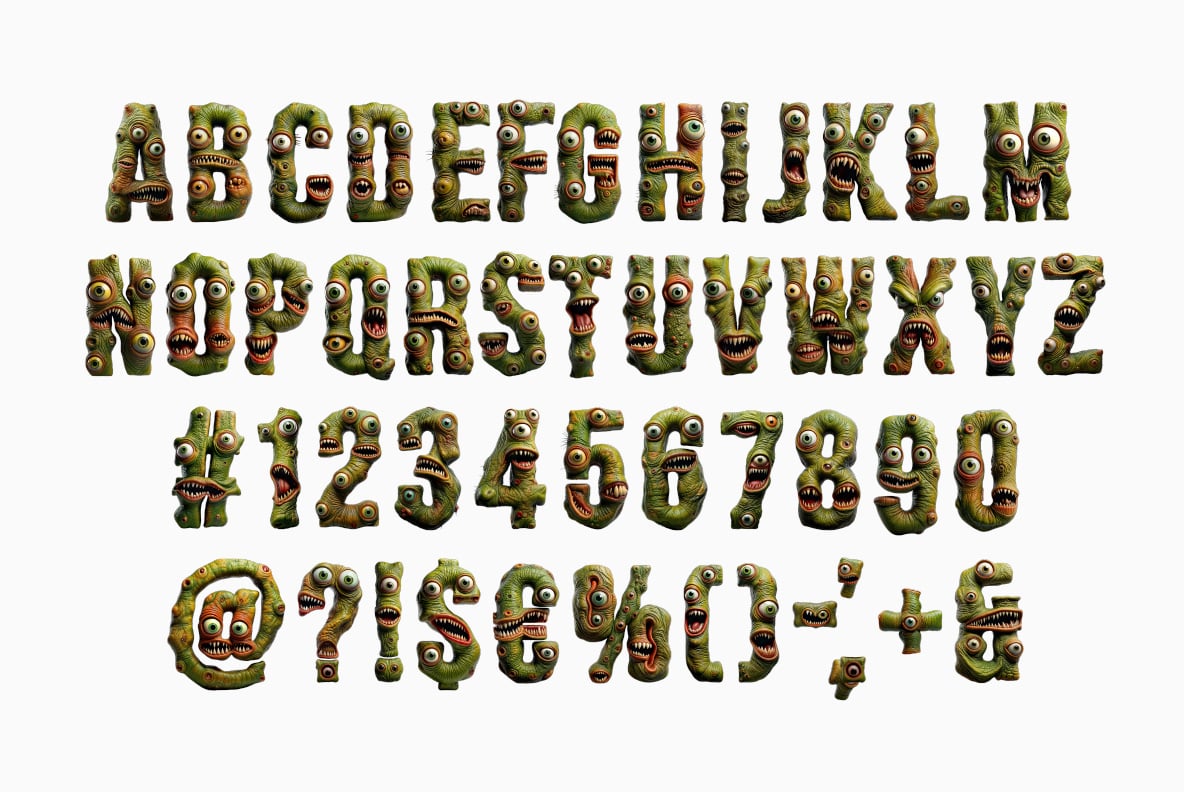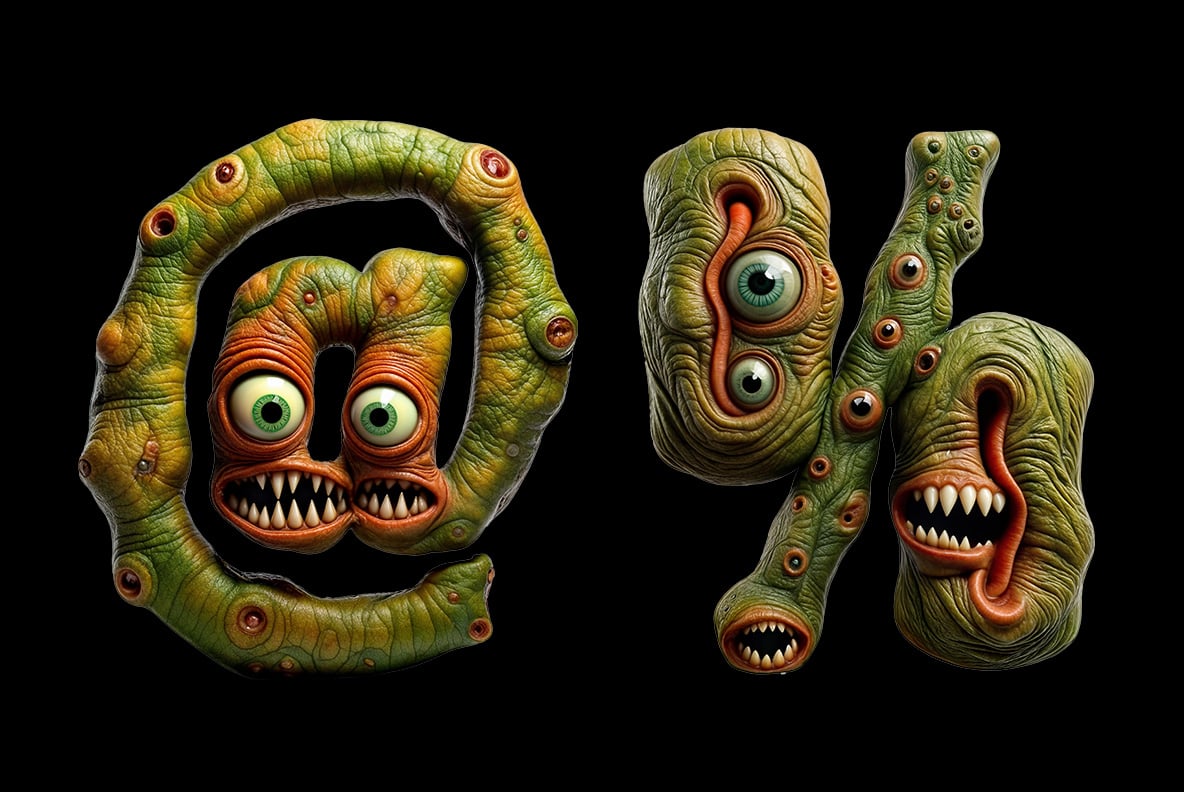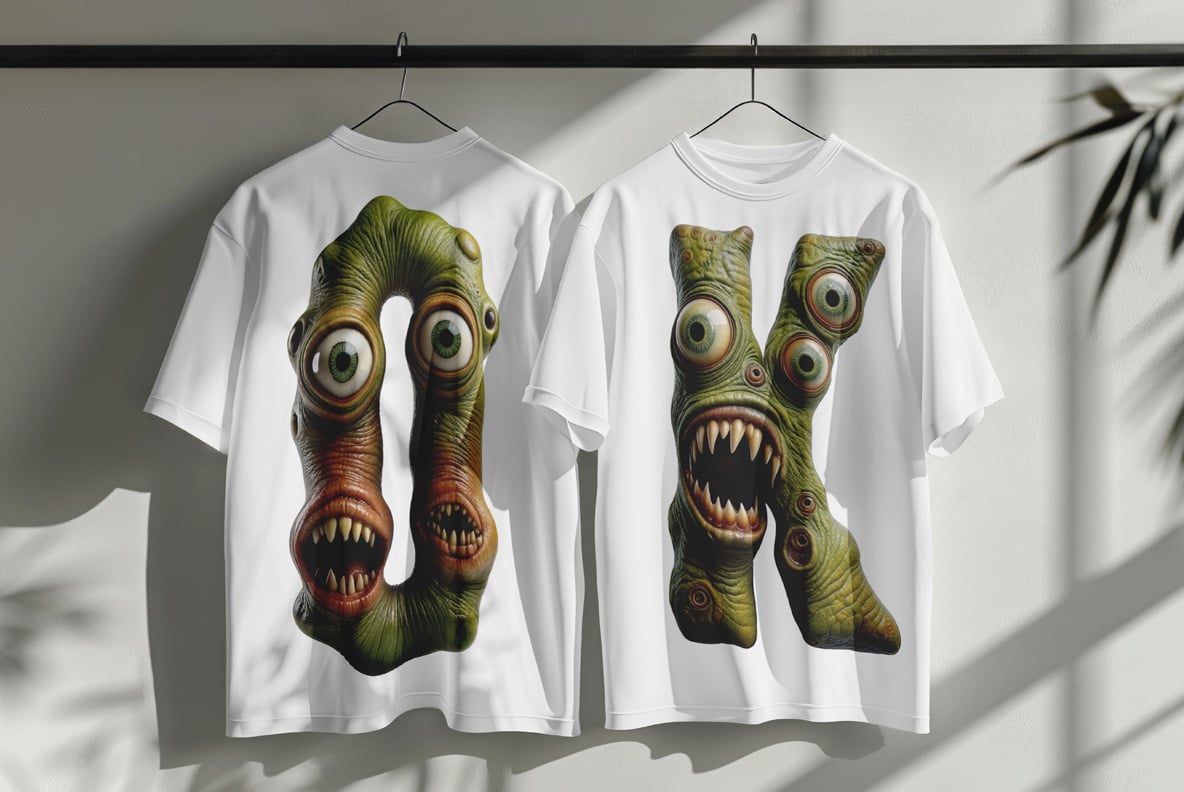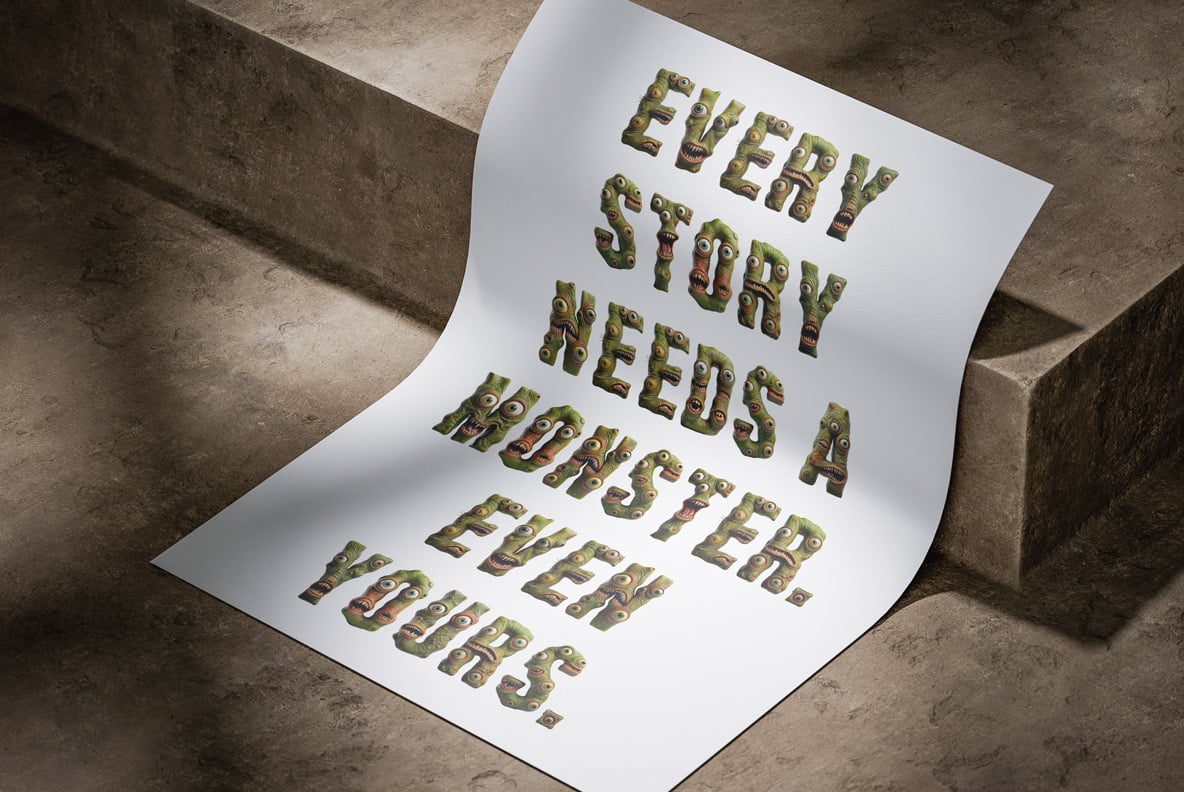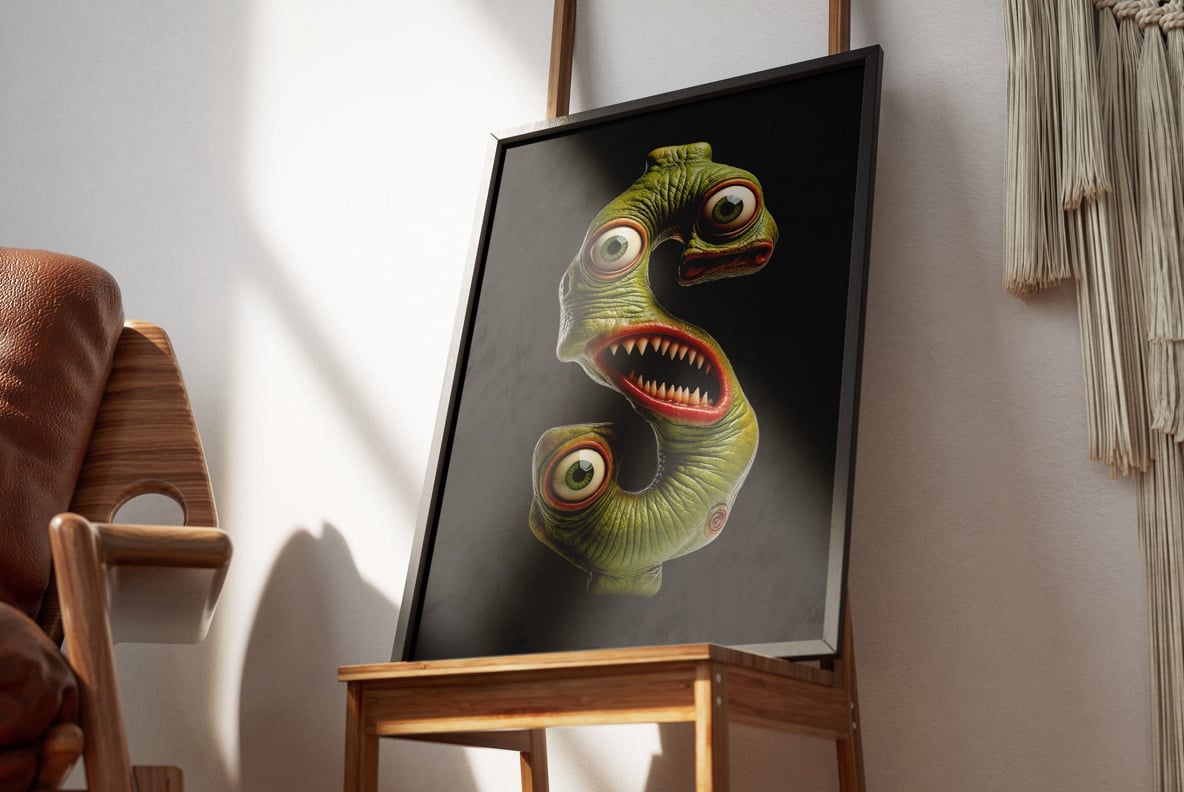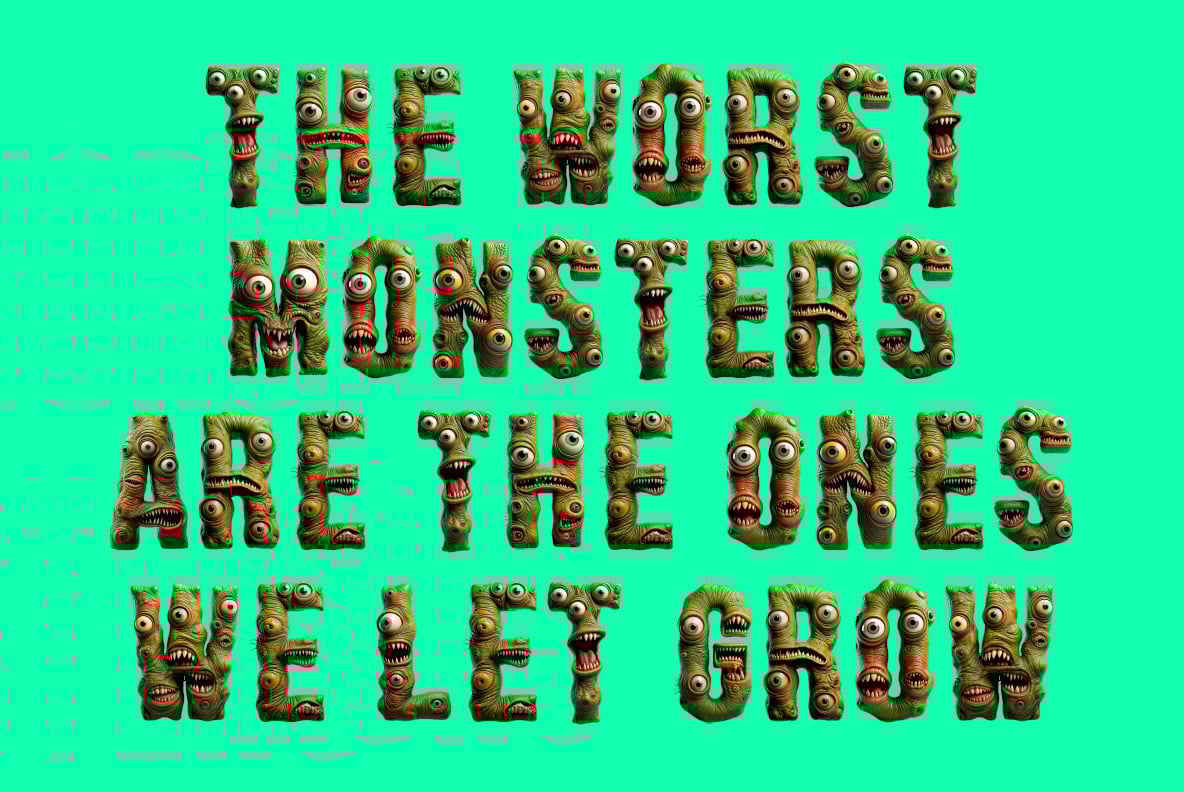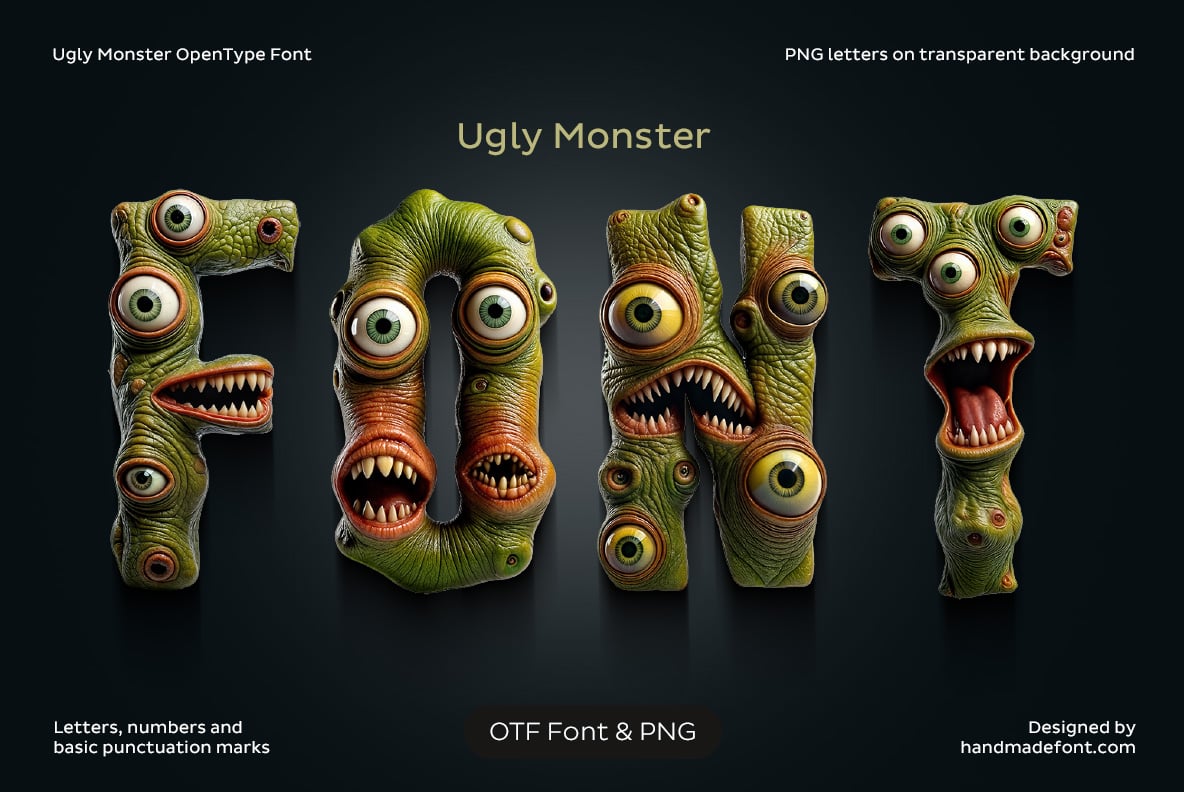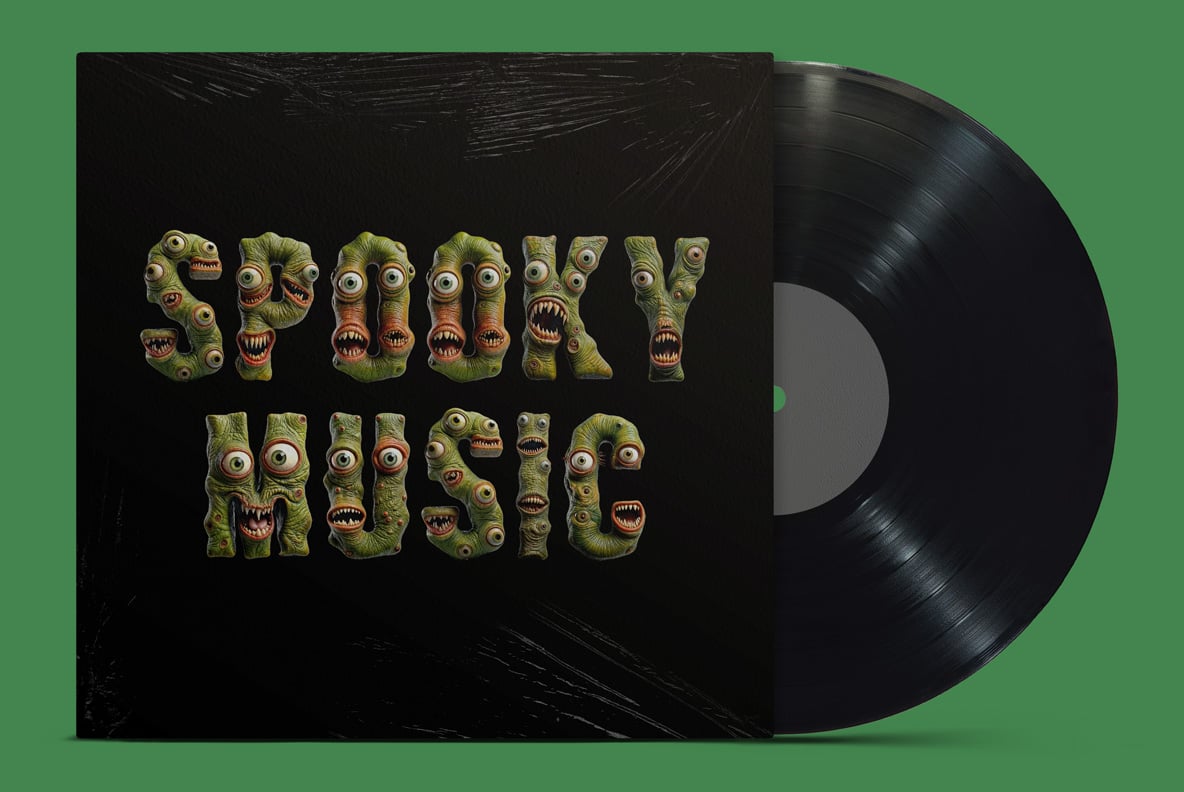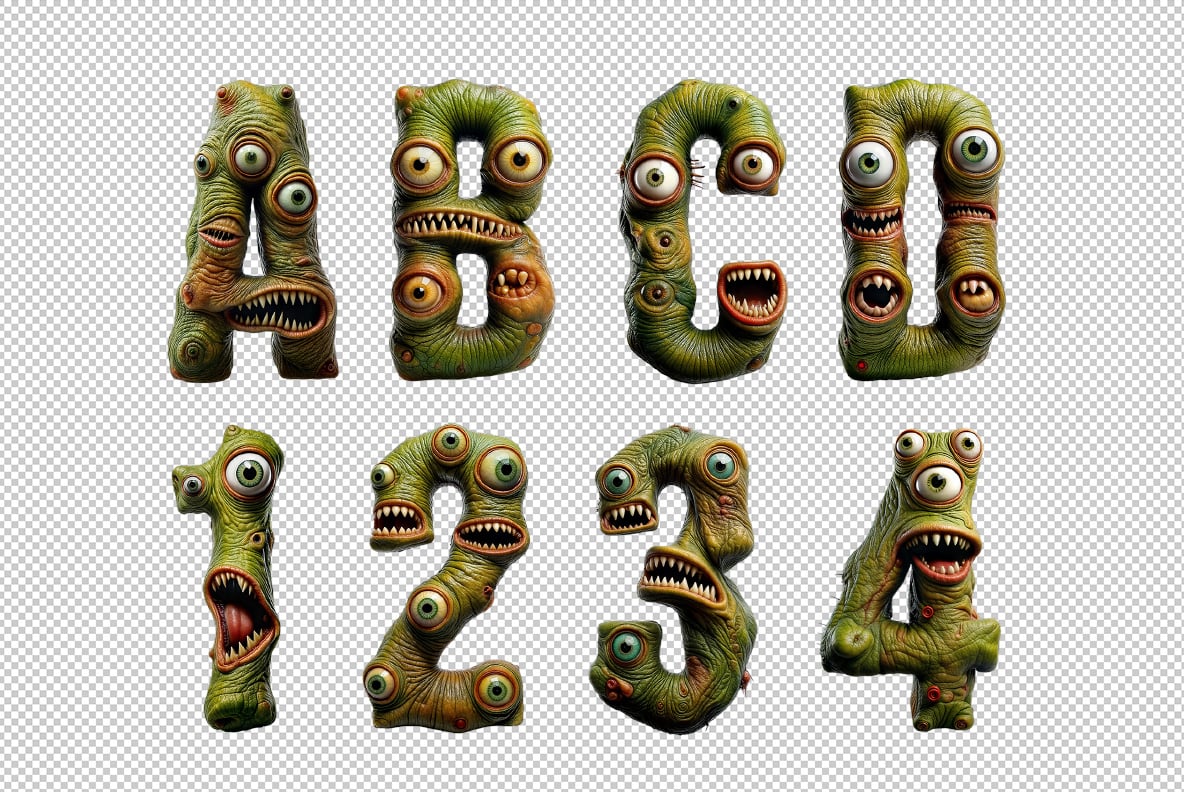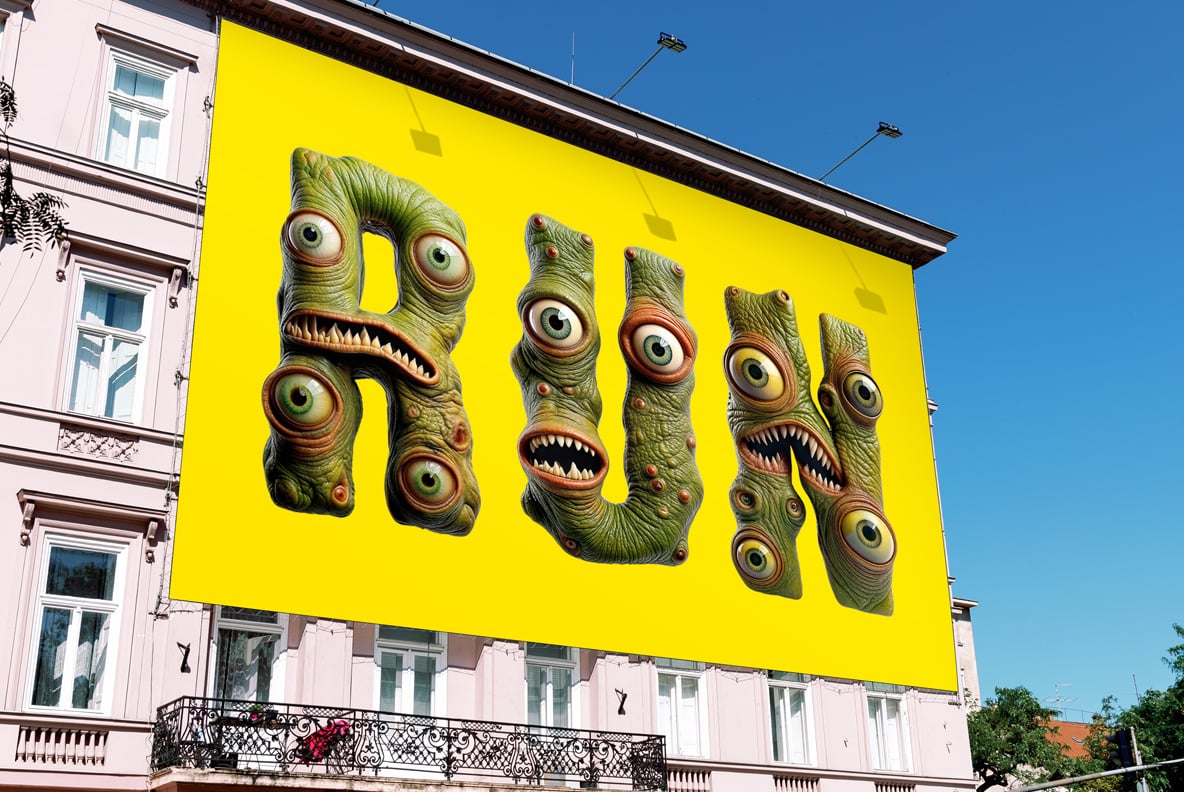
Ugly Monster Font
The Ugly Monster Font is a wildly imaginative and grotesquely fun typeface, perfect for Halloween, horror themes, and quirky designs. Each letter is crafted to resemble a hideous monster, complete with bulging eyes, sharp fangs, textured green skin, and bizarre facial expressions. This font oozes personality and a touch of chaos, making it ideal for posters, spooky invitations, or anything that needs a creepy-cute vibe. The detailed textures and exaggerated features create a hand-crafted, 3D look that’s both eye-catching and entertaining. With its cartoonish horror aesthetic, Ugly Monster Font adds humor and fright in perfect balance to your visual projects.
A high definition OpenType Font. Contains uppercase characters, numerals and basic punctuation. (Draw height roughly 800 pixels). All letters and glyphs that comprises this font you can see on the preview.